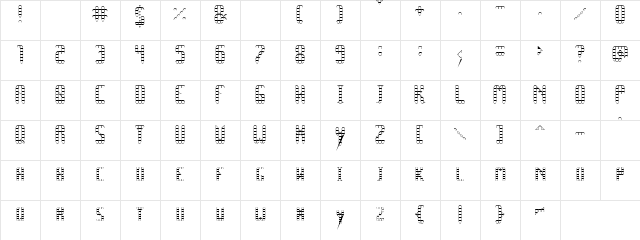
SPACE PEZ Outline
Style: Outline
Foundry: Nils von Blanc (www-nils-von-Blanc.de)
Designer: Nils von Blanc
Design Context for SPACE PEZ
SPACE PEZ is built around its visual character rather than neutral utility - its distinctive forms are designed to make an impression at display sizes.
Font Pairing: Pair with a clean neutral sans-serif for body copy to let SPACE PEZ's character lead without overwhelming the composition.
Pro Tip: Use SPACE PEZ exclusively at display sizes - it was designed to be seen, not read at length. Let a neutral companion handle body copy.